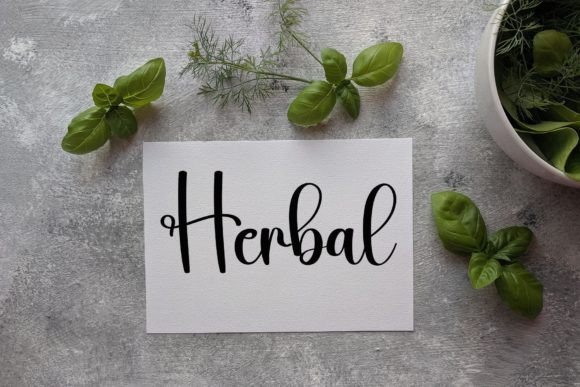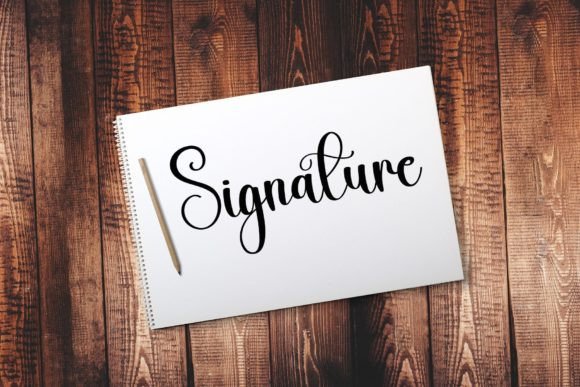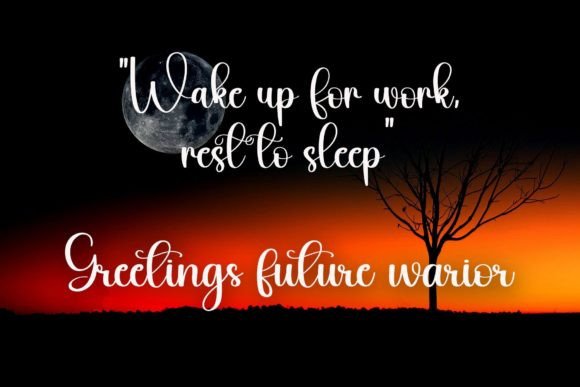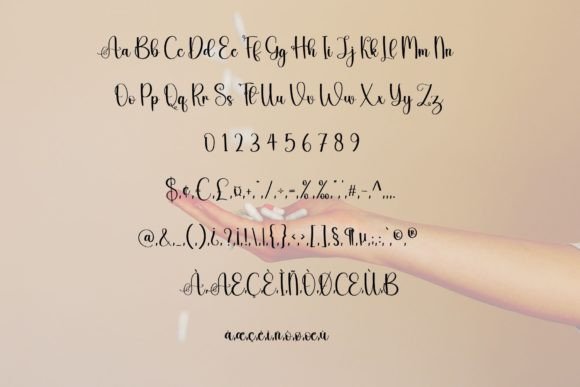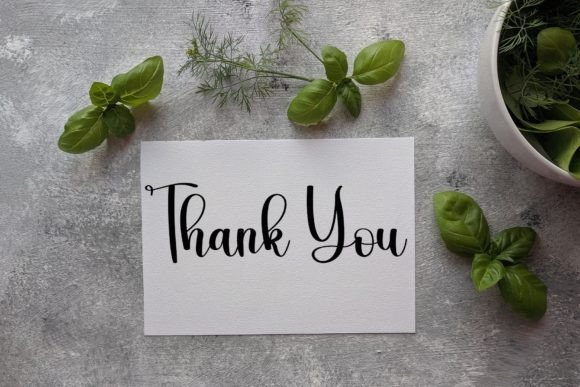
Introducing Capture Font: The Perfect Handwritten Font for Crafty Projects
Are you a designer or crafter looking for a font that adds a touch of elegance and authenticity to your projects? Look no further than Capture Font! This delicate and well-rounded handwritten font is perfect for crafty projects that need a personal and sophisticated touch. In this article, we’ll explore the features and benefits of Capture Font, and show you how to use it to take your designs to the next level.
What is Capture Font?
Capture Font is a beautiful handwritten font that is designed to bring a sense of warmth and personality to your designs. Its delicate and well-rounded letterforms make it perfect for a variety of crafty projects, from wedding invitations and birthday cards to personal branding and elegant logos. With its classic and timeless feel, Capture Font is sure to become a staple in your font collection.
Features of Capture Font
So, what makes Capture Font so special? Here are just a few of its key features:
- Delicate and well-rounded letterforms: Capture Font features beautiful, hand-crafted letterforms that are both delicate and well-rounded. This gives the font a warm and inviting feel that’s perfect for crafty projects.
- Handwritten with love: Capture Font is a truly handwritten font, crafted with love and care to ensure that every letterform is unique and authentic.
- Perfect for crafty projects: Whether you’re working on a wedding invitation, birthday card, or personal branding project, Capture Font is the perfect choice.
- Elegant and sophisticated: Capture Font has an elegant and sophisticated feel that’s perfect for designers and crafters who want to add a touch of class to their projects.
Uses for Capture Font
So, what can you use Capture Font for? The possibilities are endless! Here are a few ideas to get you started:
- Wedding invitations: Capture Font is perfect for wedding invitations, adding a touch of elegance and sophistication to your designs.
- Birthday cards: Create beautiful and personalized birthday cards with Capture Font.
- Personal branding: Use Capture Font to create a unique and memorable brand identity.
- Elegant logos: Create stunning logos with Capture Font that are sure to impress.
- Crafty projects: Capture Font is perfect for a variety of crafty projects, from scrapbooking to card making.
Tips for Using Capture Font
Here are a few tips for using Capture Font in your designs:
- Pair it with other fonts: Capture Font pairs beautifully with other fonts, so don’t be afraid to experiment with different combinations.
- Use it for headings and titles: Capture Font is perfect for headings and titles, adding a touch of elegance and sophistication to your designs.
- Experiment with colors: Capture Font looks great in a variety of colors, so don’t be afraid to experiment and find the perfect hue for your design.
| Font Name | Capture Font |
| Author | Harlek studio |
In conclusion, Capture Font is a beautiful and versatile handwritten font that’s perfect for crafty projects that need a personal and sophisticated touch. With its delicate and well-rounded letterforms, elegant feel, and versatility, Capture Font is sure to become a staple in your font collection. Whether you’re a designer or crafter, Capture Font is the perfect choice for adding a touch of elegance and authenticity to your designs.